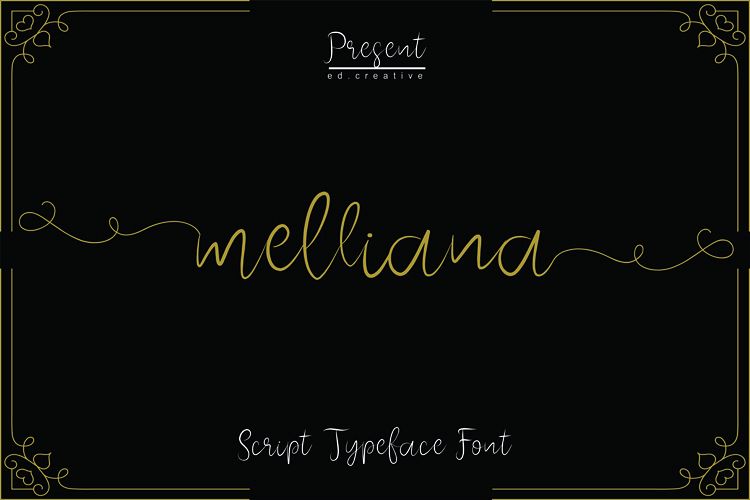
melliana
melliana is a modern calligraphy font with
the current handwriting style, this font is perfect for branding,
wedding invites, magazines, mugs, business cards, quotes, posters, book covers and
etc
fonts is equipped with ligature and alternate so it's suitable for your design